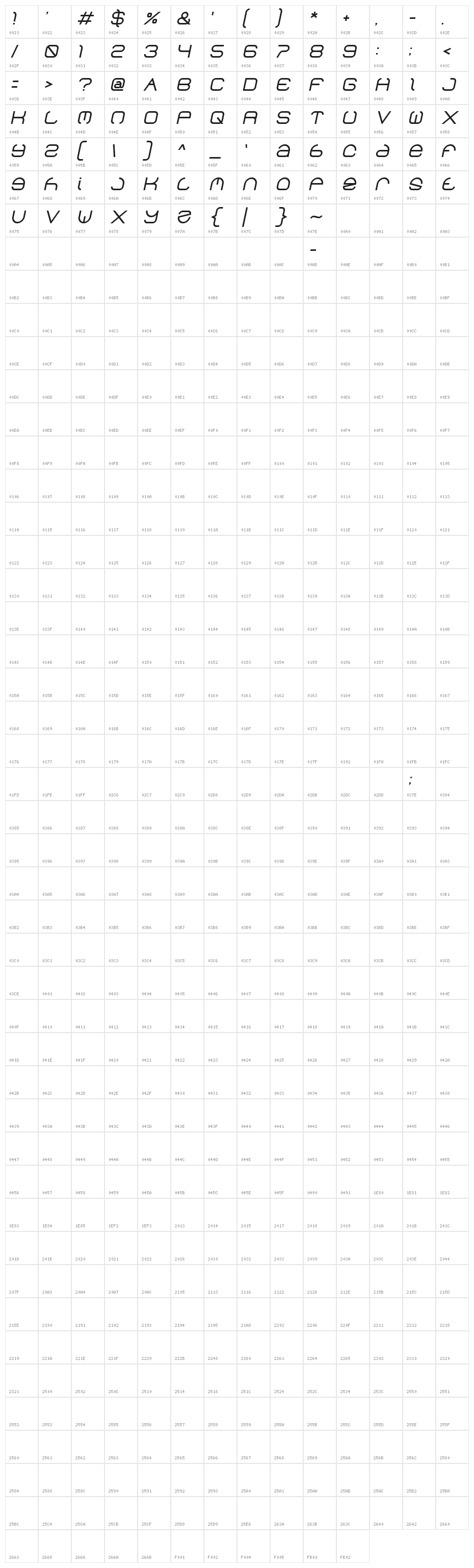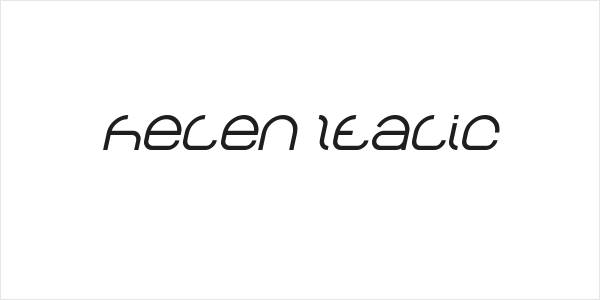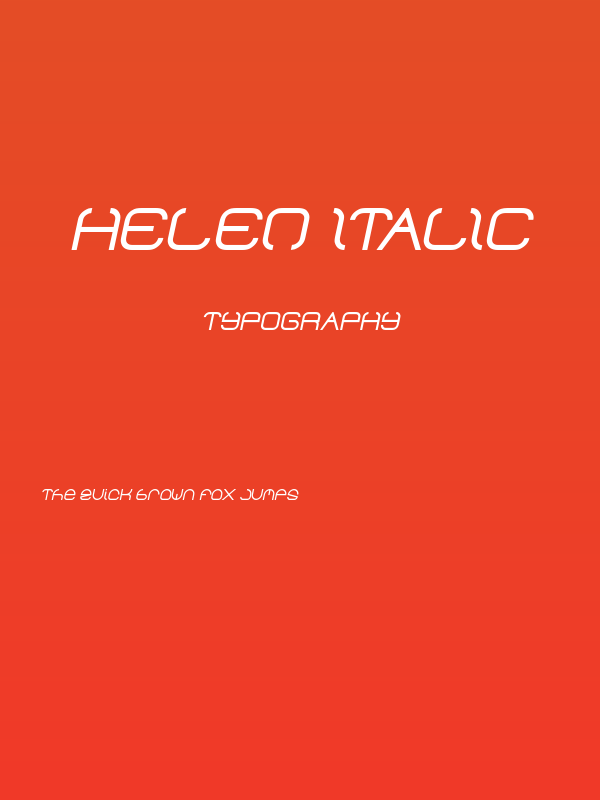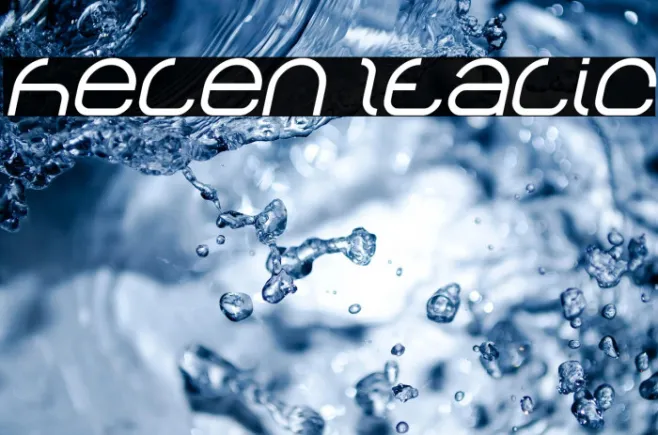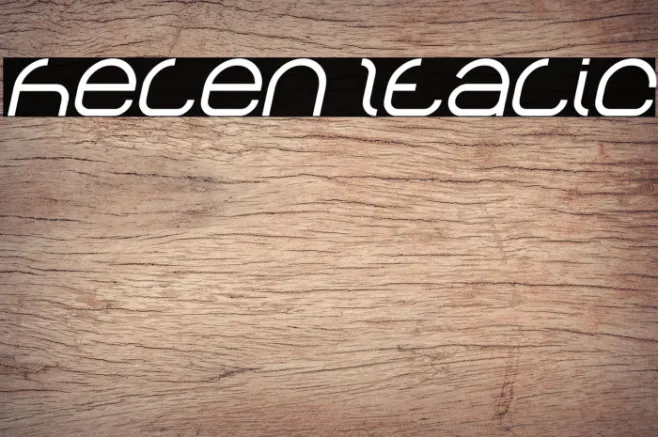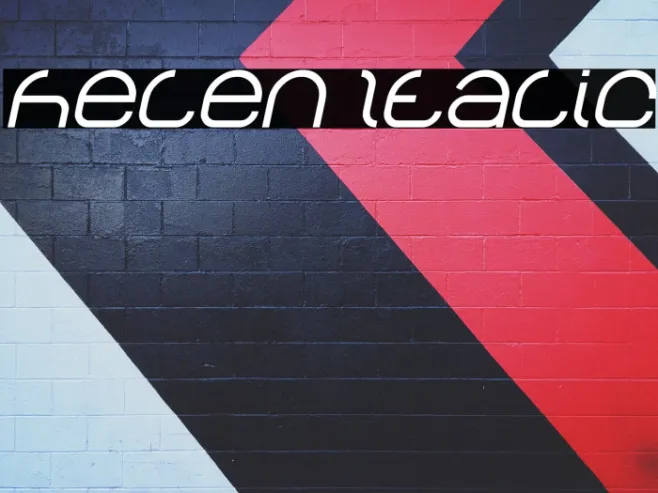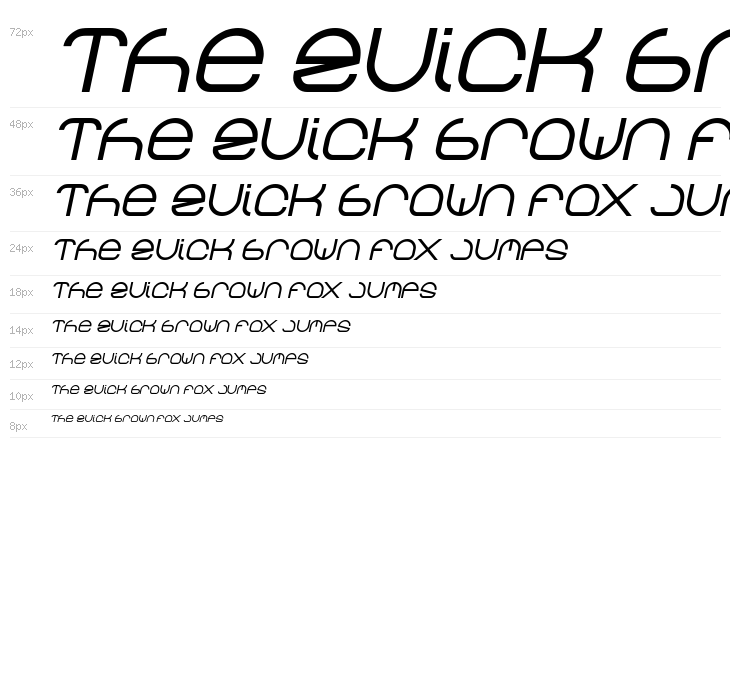
helen Italic Font
helen Italic Description
This font features a sleek, modern design with a distinct italic slant, giving it a sense of motion and fluidity. The characters are crafted with smooth, continuous lines that create a streamlined appearance. The uppercase and lowercase letters maintain a consistent style, with rounded edges and a futuristic aesthetic. Numbers and special characters follow the same design principles, ensuring uniformity across all glyphs. The font's overall look is both contemporary and stylish, making it suitable for a variety of creative applications.
| Proposed Projects | Ideal for branding, advertising, technology-related projects, and modern web design. |